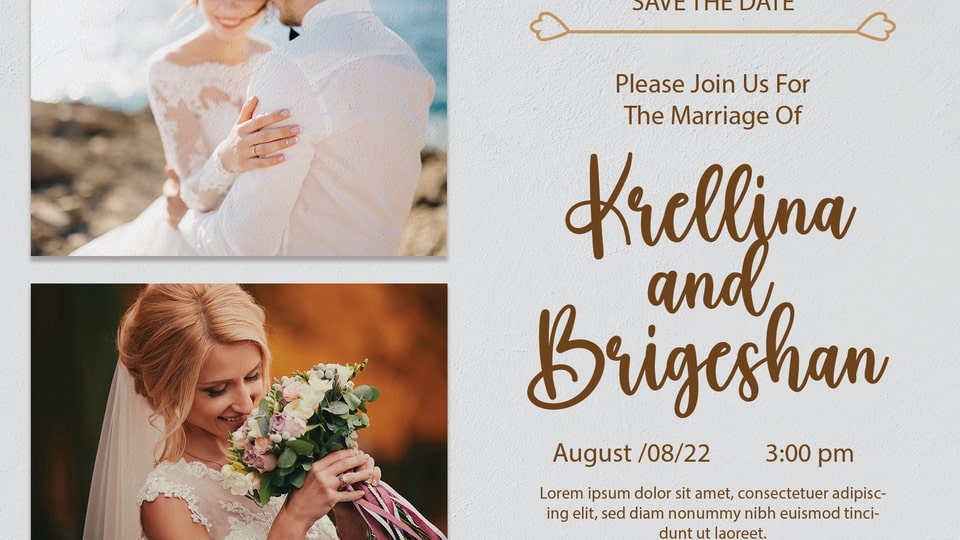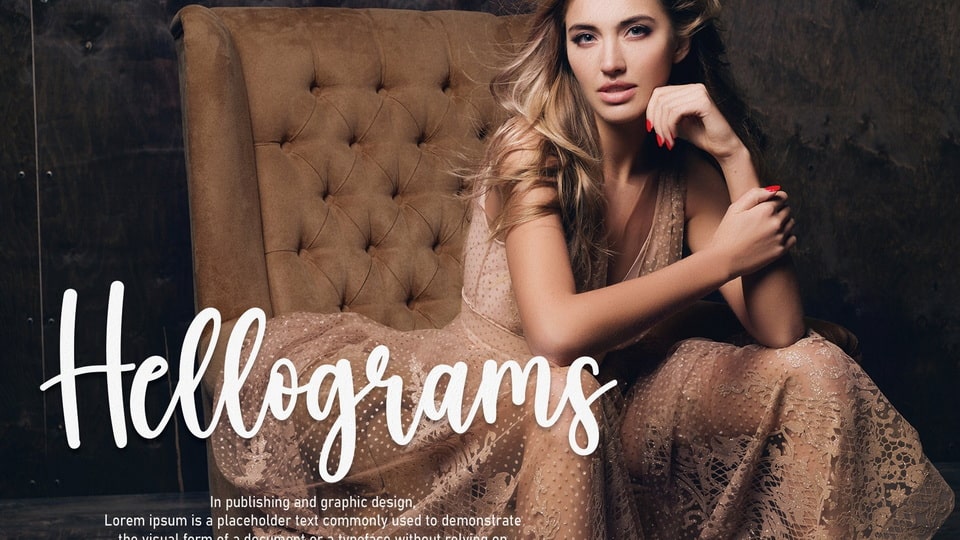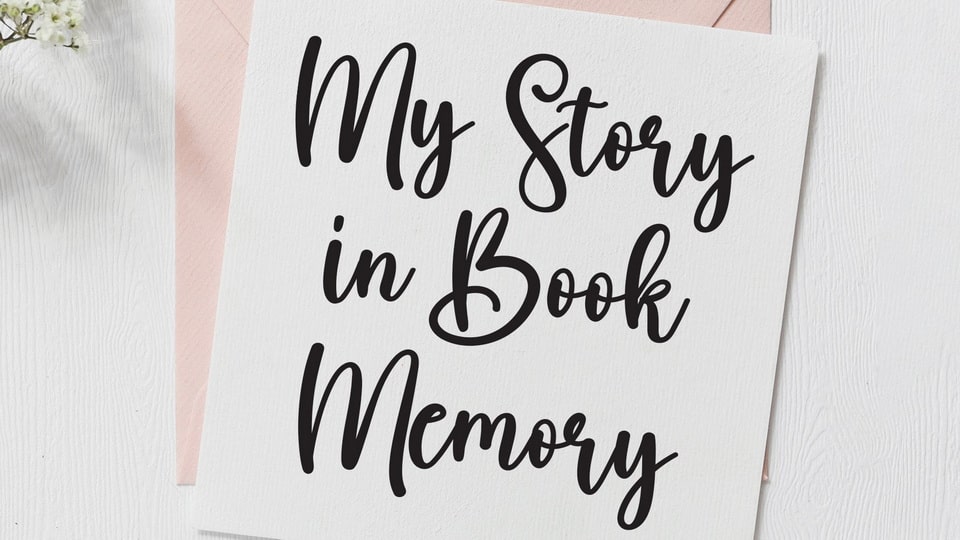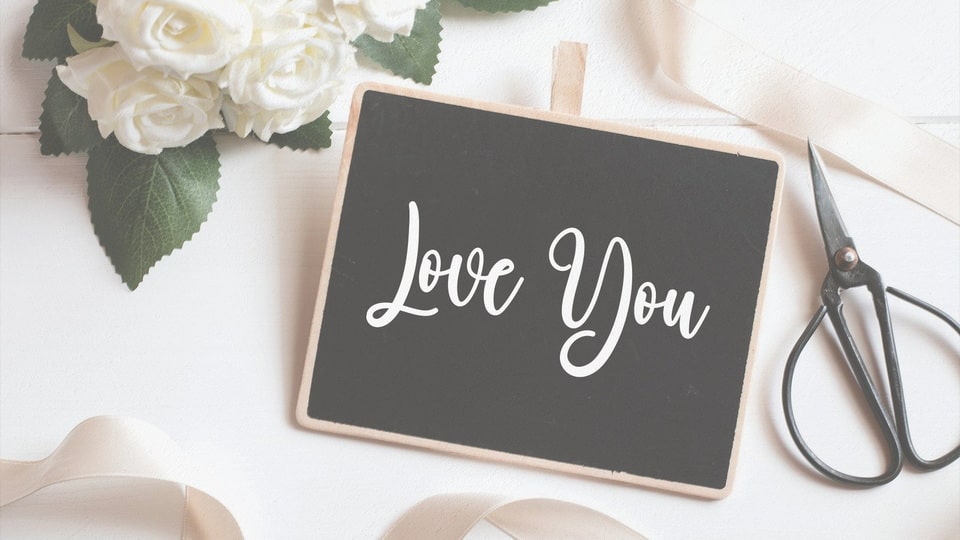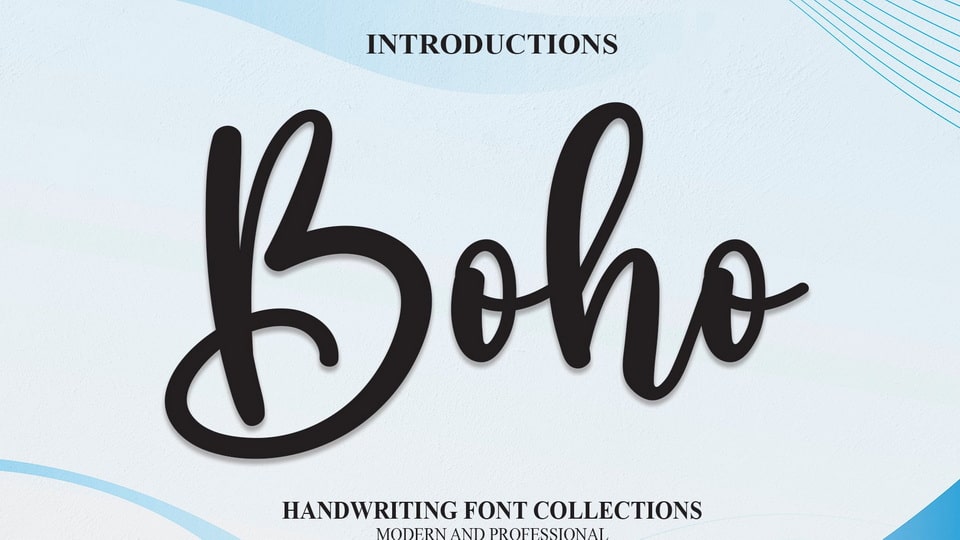
Boho Font
Boho is a charming handwritten script font. Modern and elegant, this typeface is made of beautiful creative strokes.
Boho font is perfect for your creative ideas, both formal and informal. It has a modern style with a touch of creative ideas that is very suitable to be applied anywhere that requires creative ideas such as invitation cards, letterheads, website logos, social media, banners, advertisements, brochures, packaging products, leather products, and any product that requires writing.